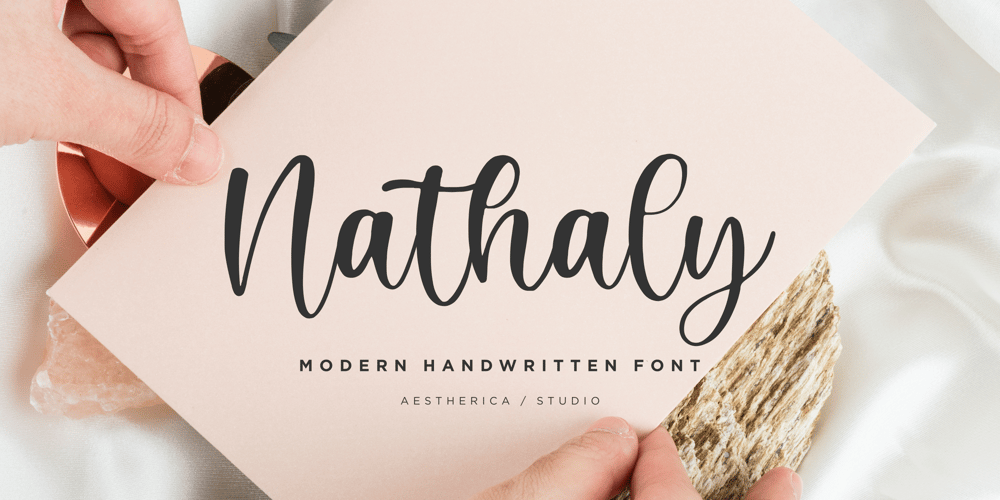
Nathaly Font Family was designed by Muhammad Fathurrohman and published by Aestherica Studio. Nathaly contains 1 styles and family package options. Nathaly is a sweet and delicate handwritten font. Dainty and joyful, this font will be ideal for writing wedding invitations, cards, or any other design that may need a romantic, personalized touch!